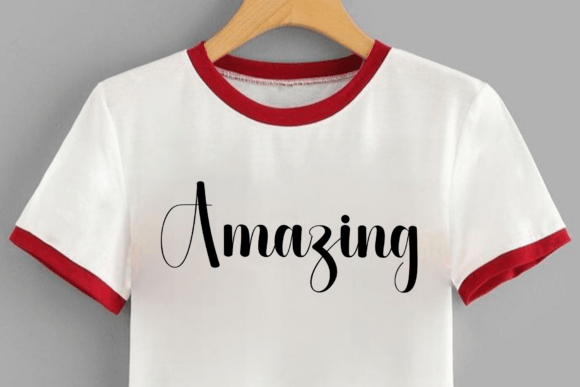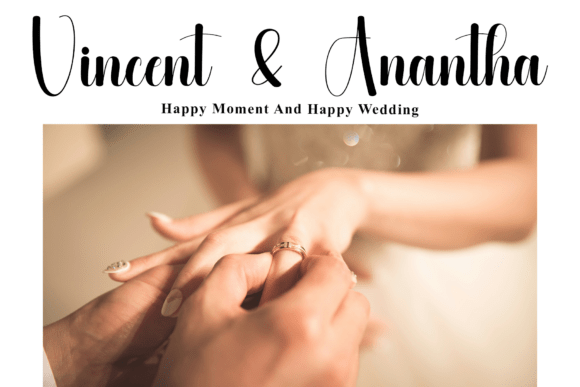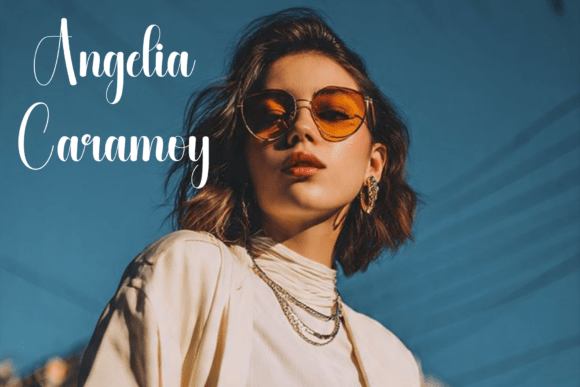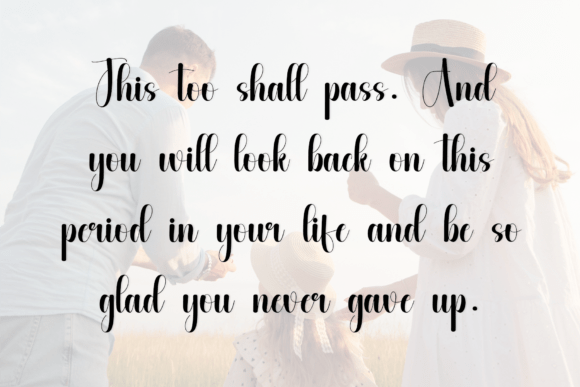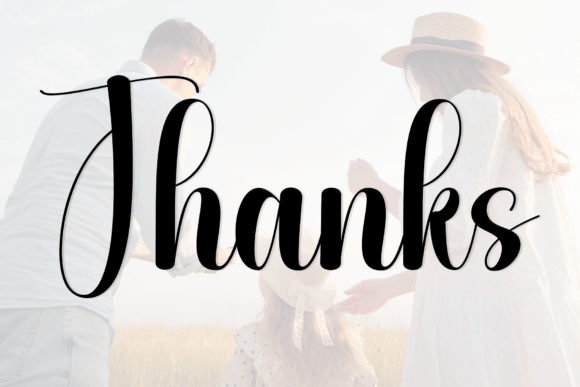
Celebrate the Bonds of Family with a Stunning Script Font
Are you looking for a font that embodies the warmth and love of family? Look no further than Family, a beautiful handwriting script font designed to evoke a sense of home and togetherness. This stunning typeface is perfect for wedding albums, family photo watermarks, scrapbooking, and more. In this article, we’ll explore the unique features of Family and how it can elevate your design projects.
A Font that Captures the Essence of Family
Family is more than just a font; it’s an invitation to share your story. The fluid connection between characters mimics the natural movement of a pen, making it ideal for projects that require a deep, personal touch. The beautiful contrast between its bold, grounded strokes and delicate, sweeping flourishes creates a sense of balance and harmony, perfect for capturing the essence of family.
Whether you’re a designer, crafter, or DIY enthusiast, Family is the perfect font for your projects. Its unique blend of bold and delicate strokes makes it versatile enough to use for a wide range of applications, from wedding albums and family photo watermarks to scrapbooking and more. The font’s professional yet deeply emotional aesthetic makes it ideal for lifestyle brands, non-profits, or boutique family-run businesses.
Key Features of Family Font
- Beautiful Handwriting Script: Family features a stunning handwriting script that evokes a sense of home and togetherness.
- Contrasting Strokes: The font’s bold, grounded strokes and delicate, sweeping flourishes create a beautiful contrast that’s perfect for capturing the essence of family.
- Fluid Connection between Characters: The fluid connection between characters mimics the natural movement of a pen, making it ideal for projects that require a deep, personal touch.
- Versatile: Family is versatile enough to use for a wide range of applications, from wedding albums and family photo watermarks to scrapbooking and more.
Use Cases for Family Font
So, how can you use Family in your design projects? Here are a few ideas to get you started:
- Wedding Albums: Use Family to create beautiful wedding albums that capture the love and joy of the special day.
- Family Photo Watermarks: Add a personal touch to your family photos with a watermark featuring the Family font.
- Scrapbooking: Use Family to create stunning scrapbook pages that celebrate cherished memories.
- Lifestyle Brands: Use Family to create a professional yet deeply emotional aesthetic for your lifestyle brand.
- Non-Profits: Use Family to create a compassionate and caring brand identity for your non-profit organization.
Why Choose Family Font?
So, why choose Family for your design projects? Here are a few reasons:
- Unique and Eye-Catching: Family is a unique and eye-catching font that’s sure to grab attention.
- Emotional Connection: The font’s beautiful handwriting script and fluid connection between characters create an emotional connection with the viewer.
- Versatile: Family is versatile enough to use for a wide range of applications.
- Professional yet Personal: The font’s professional yet deeply emotional aesthetic makes it ideal for projects that require a personal touch.
In conclusion, Family is a stunning handwriting script font that’s perfect for designers, crafters, and DIY enthusiasts. Its unique features, versatility, and emotional connection make it ideal for a wide range of applications, from wedding albums and family photo watermarks to scrapbooking and more. Whether you’re looking to create a professional yet deeply emotional aesthetic or simply want to celebrate the bonds that matter most, Family is the perfect font for your design projects.